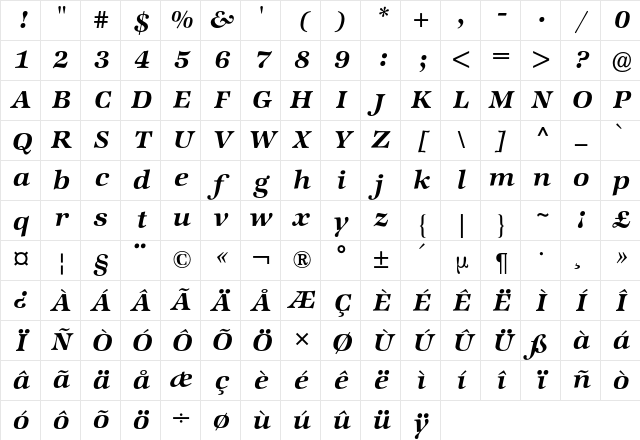
Zapf International BQ Regular
Zapf International BQ Family
Zapf International BQ Regular
Design Context for Zapf International BQ
Zapf International BQ is a composed and adaptable typeface that performs quietly and consistently across a wide range of design contexts.
Pro Tip: Use Zapf International BQ in both headline and body roles to test its range before committing to a single application.